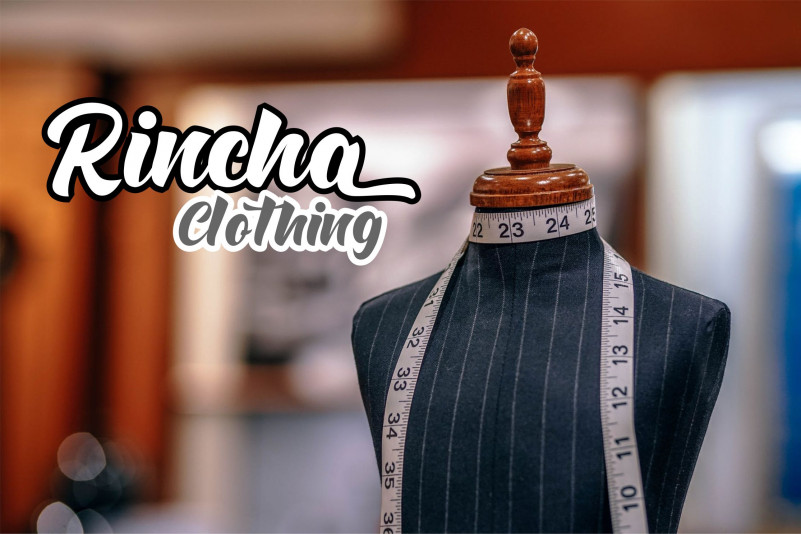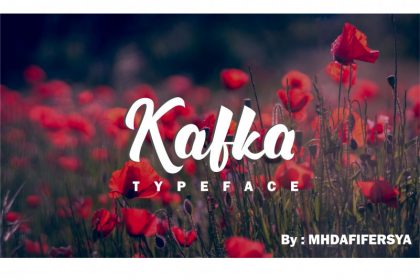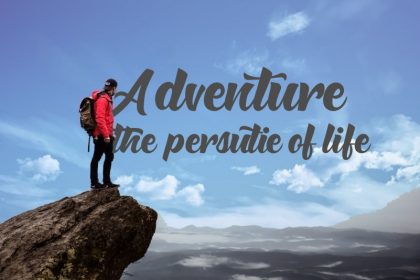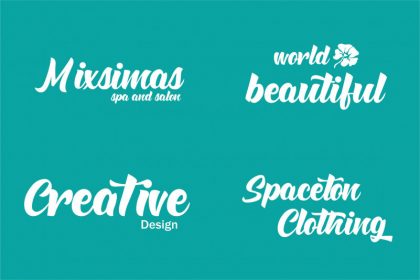
Kafka Script Font
It’s a bold script font. Kafka Typeface are clean and rough style font. You can use Kafka Typeface for your logo design, poster design, T-Shirt design, branding, badge, name card, etc.